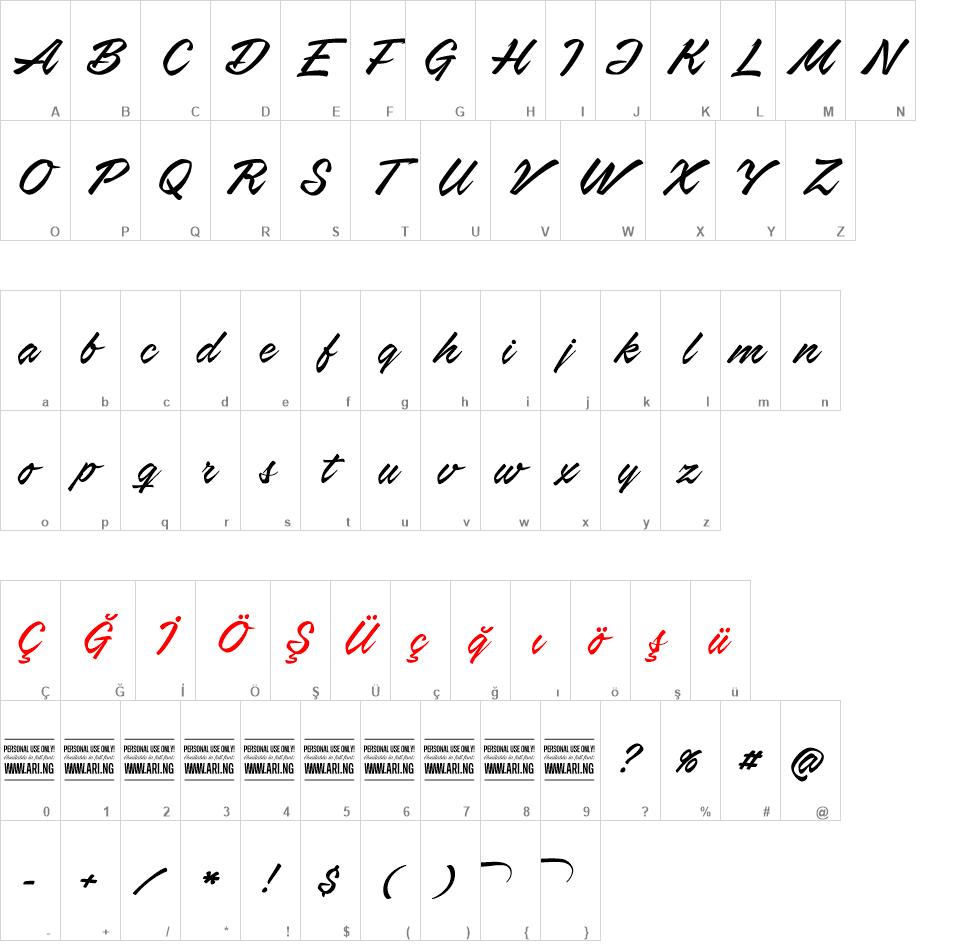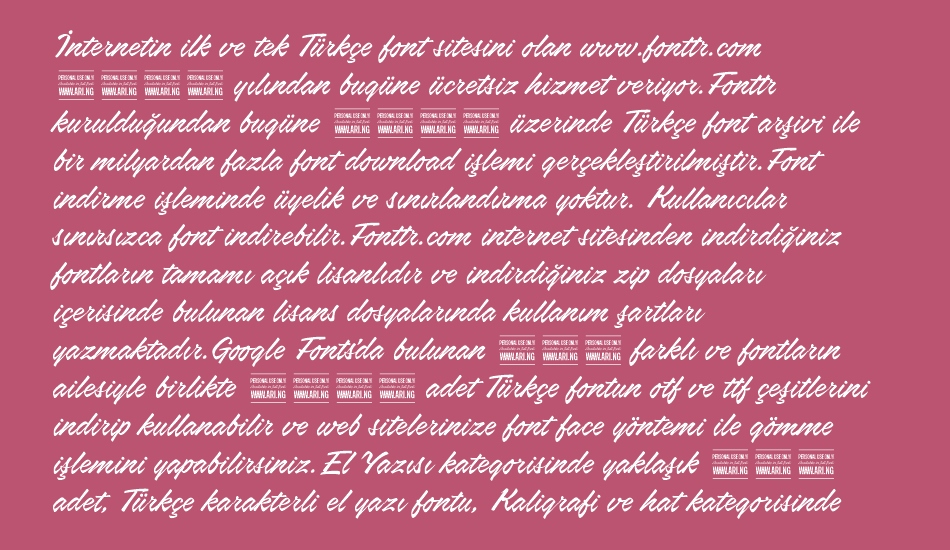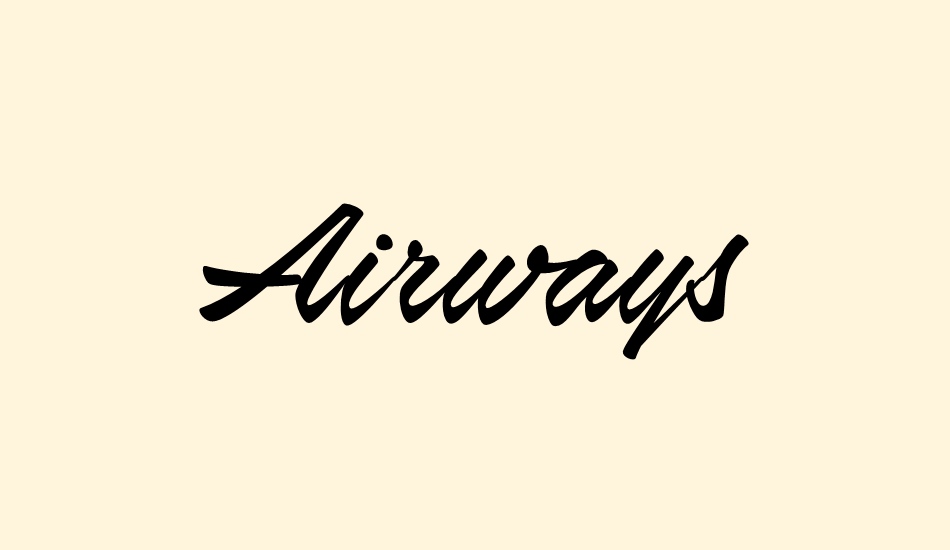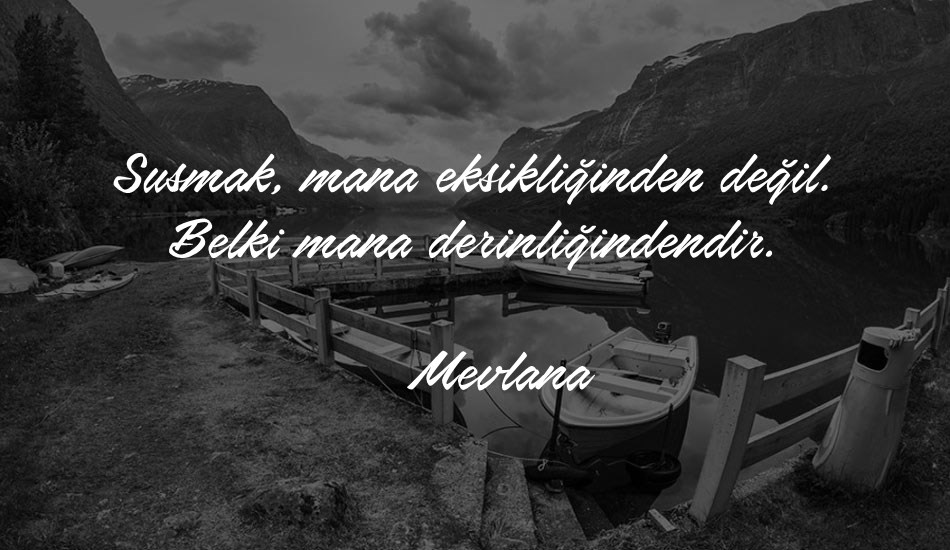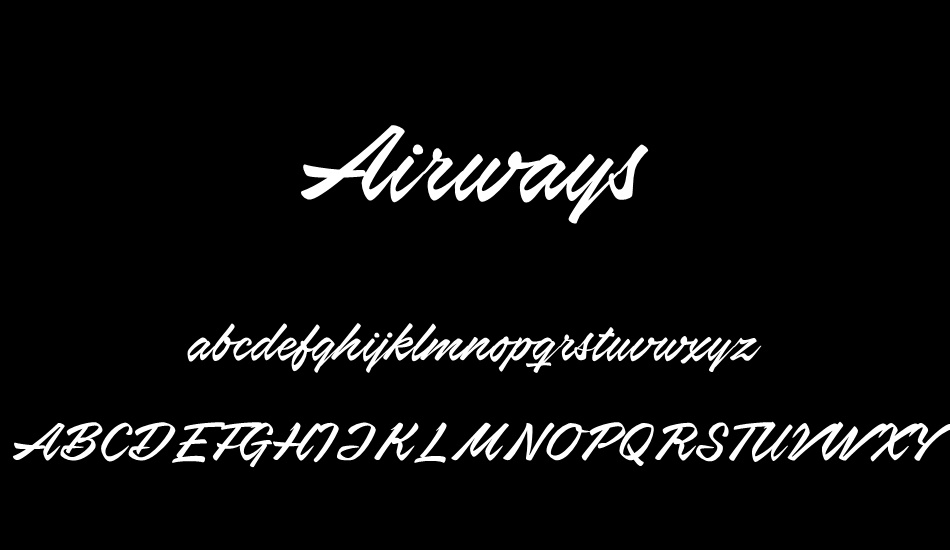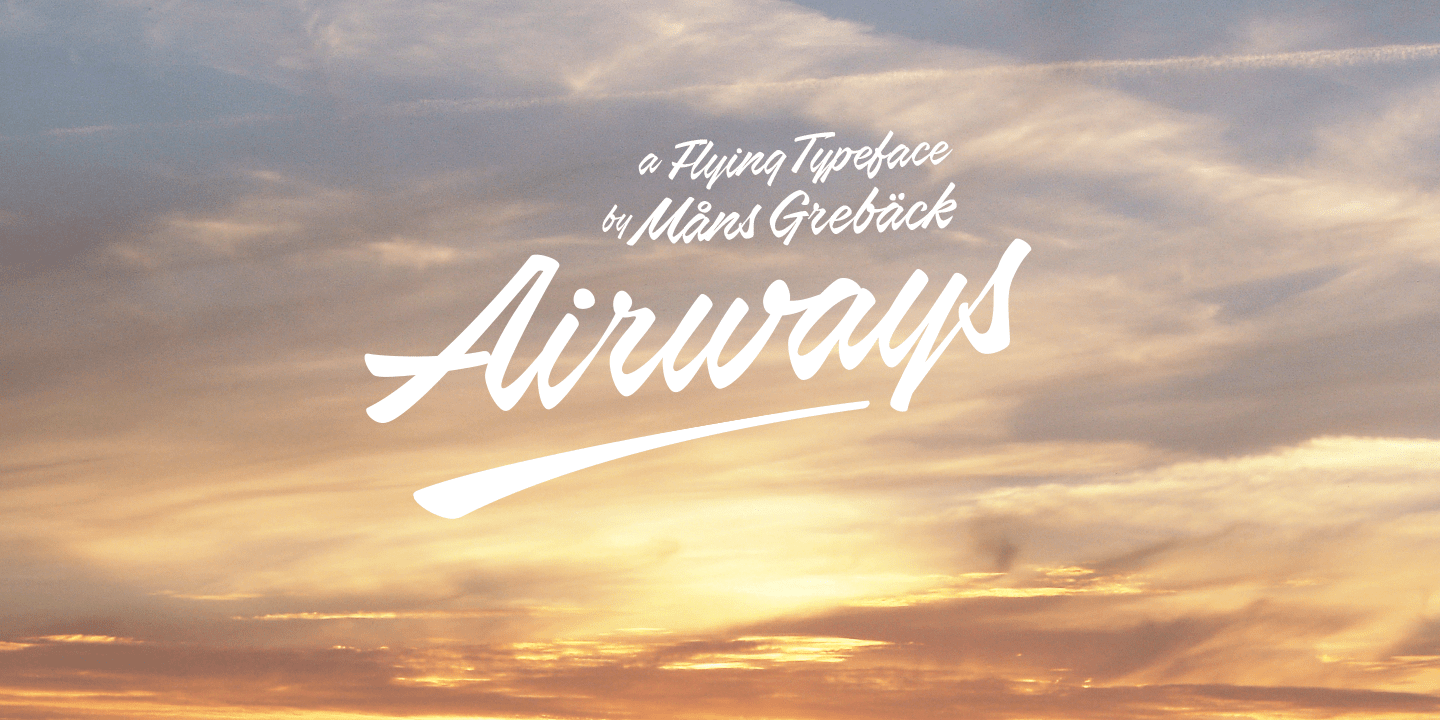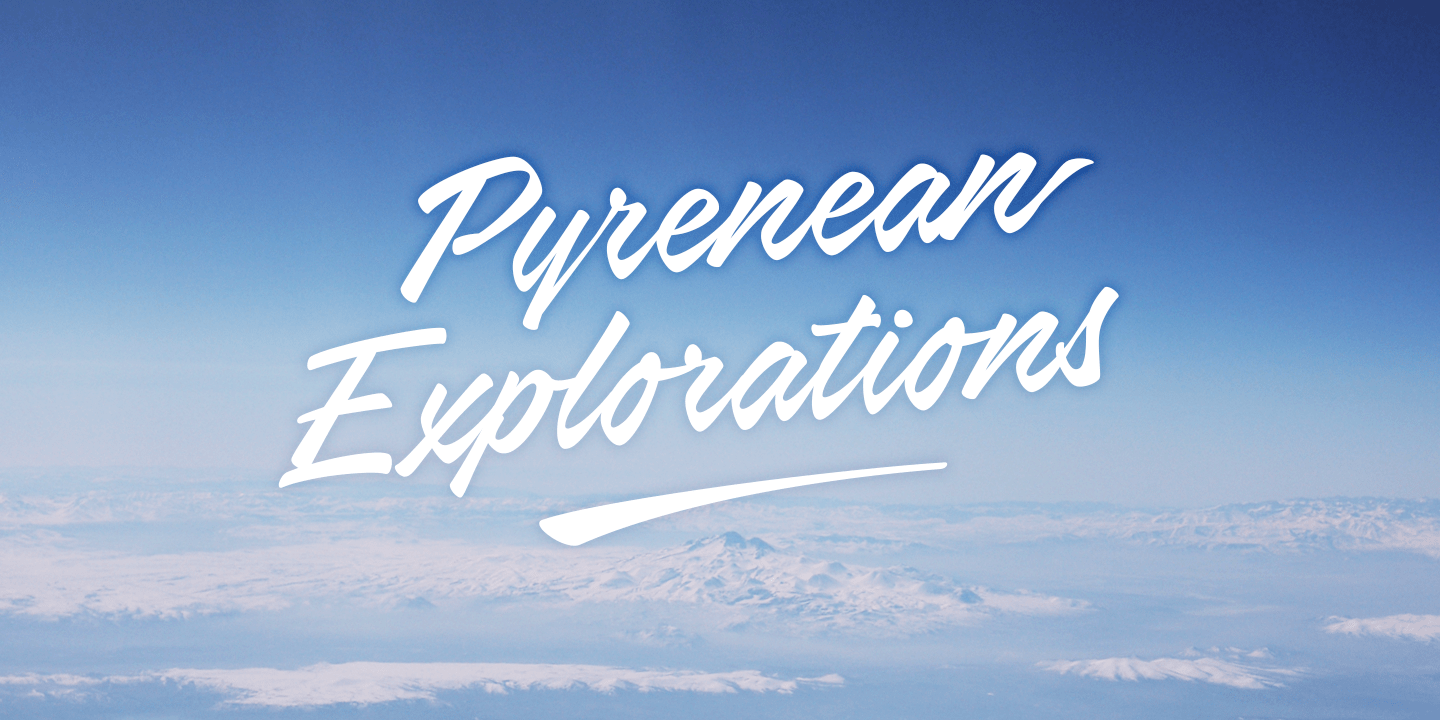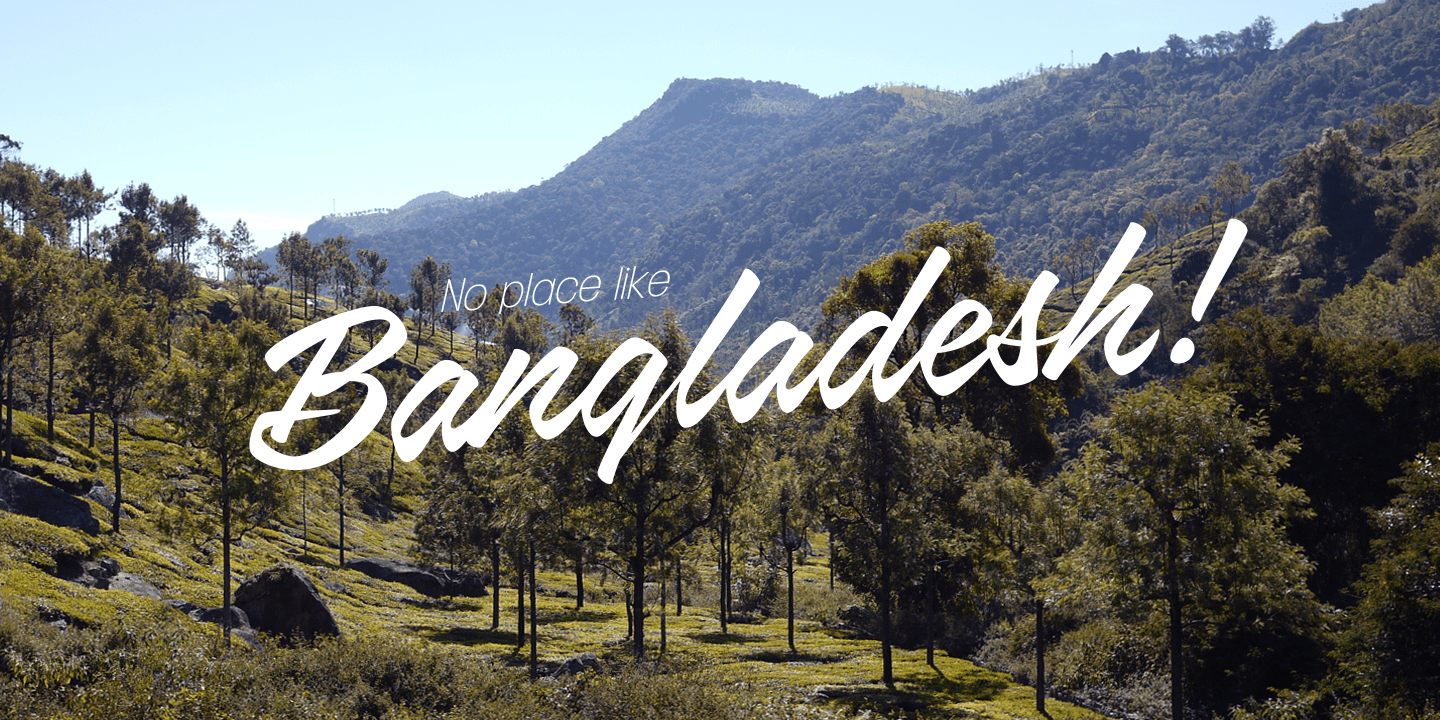
Airways font
A typeface fast and light enough to fly!
Airways is a vintage script font, with an airy yet confident style.
It was carefully drawn by M?ns Greb?ck in 2016, and contains a lot of contextual alternates and ligatures.
The font is useful in logotypes and advertising material that requires your customers' attention.